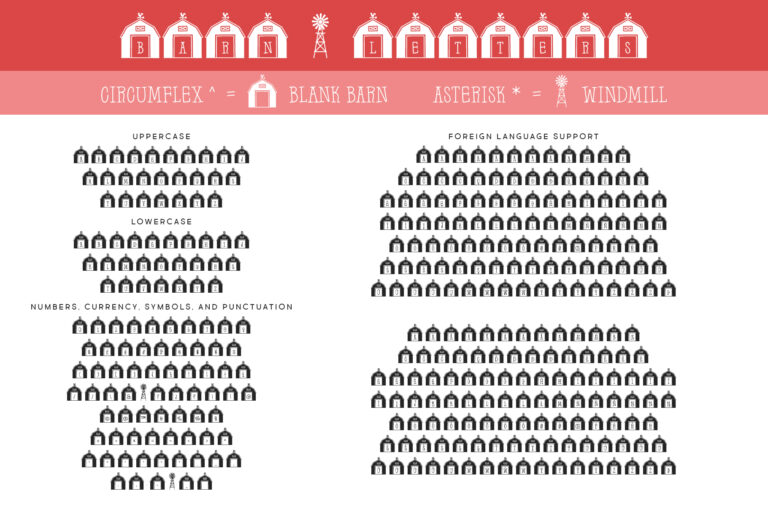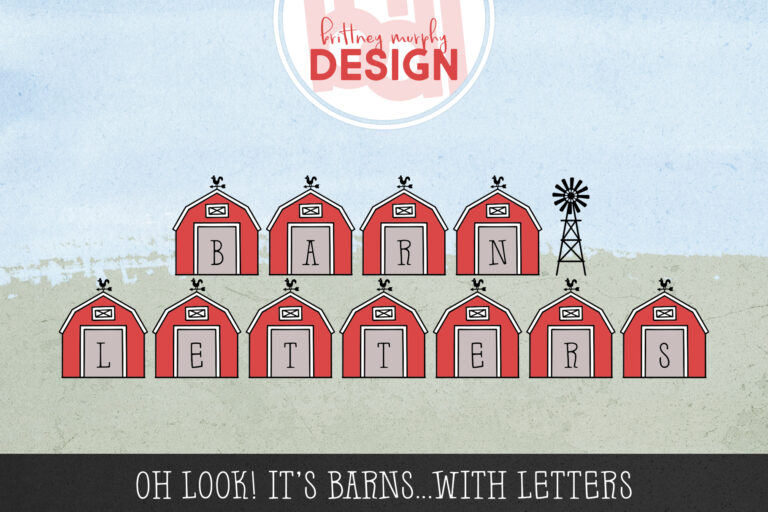
Barn Letters Font Family
Barn Letters is a fun barn font! There are two versions: one regular and one with the barn color filled in.
Use the circumflex ^ symbol for an empty barn and the asterisk * or dash – for a windmill!